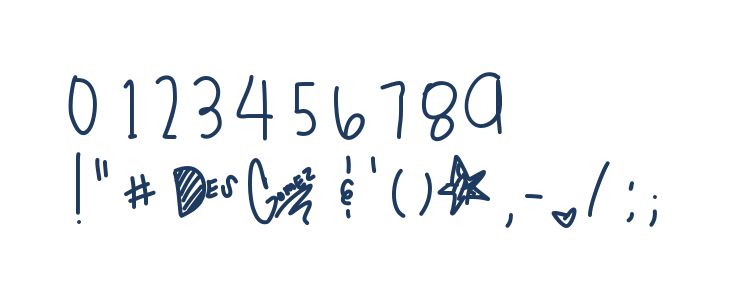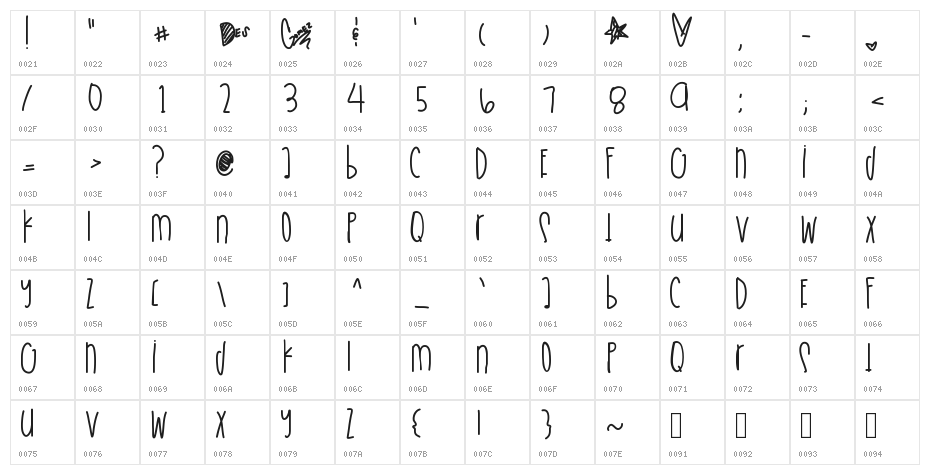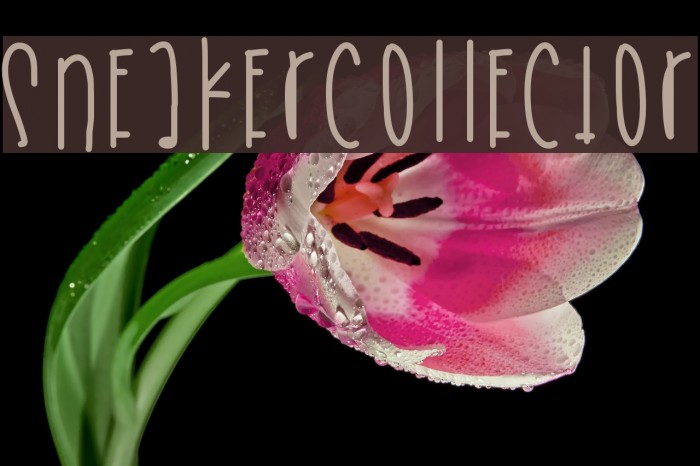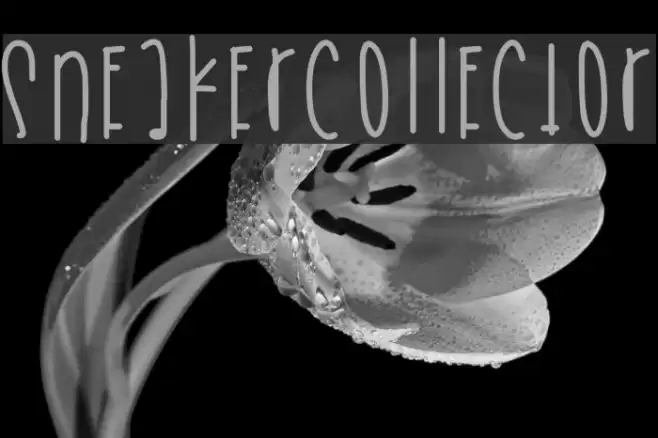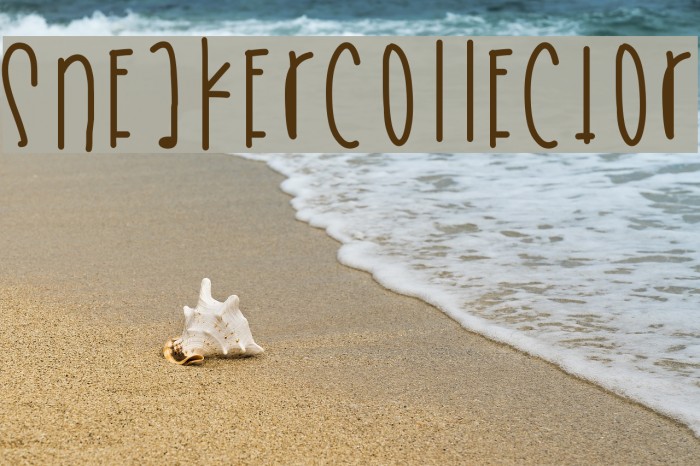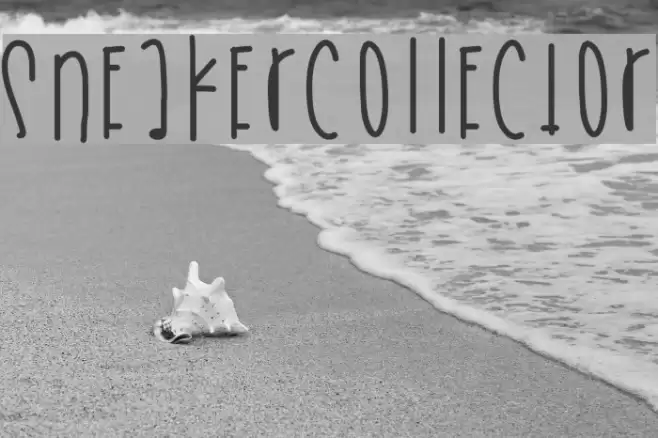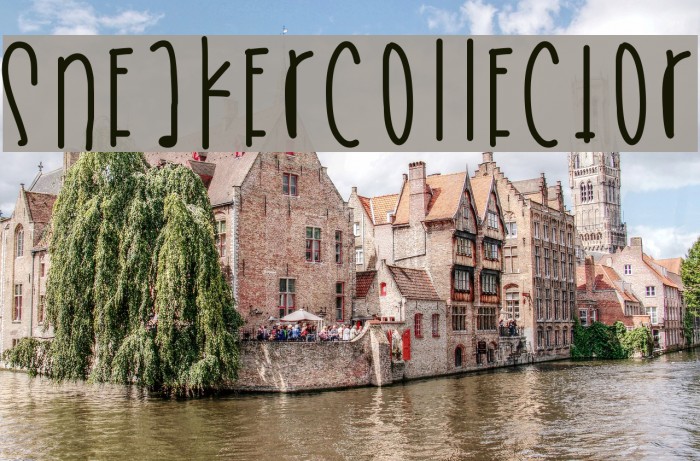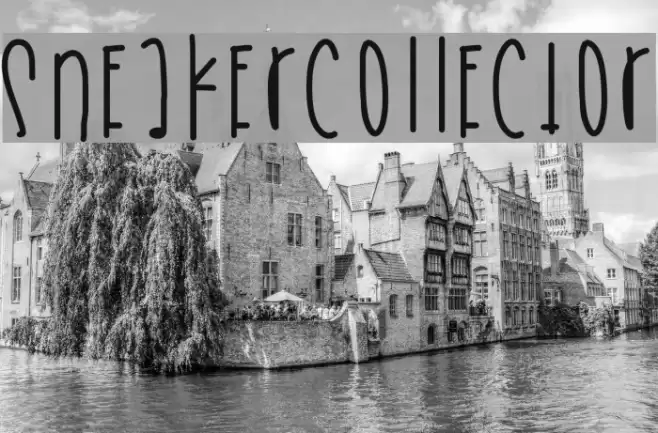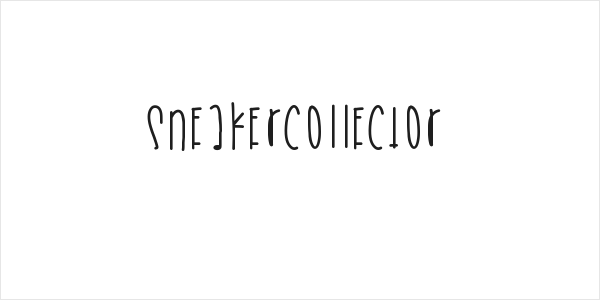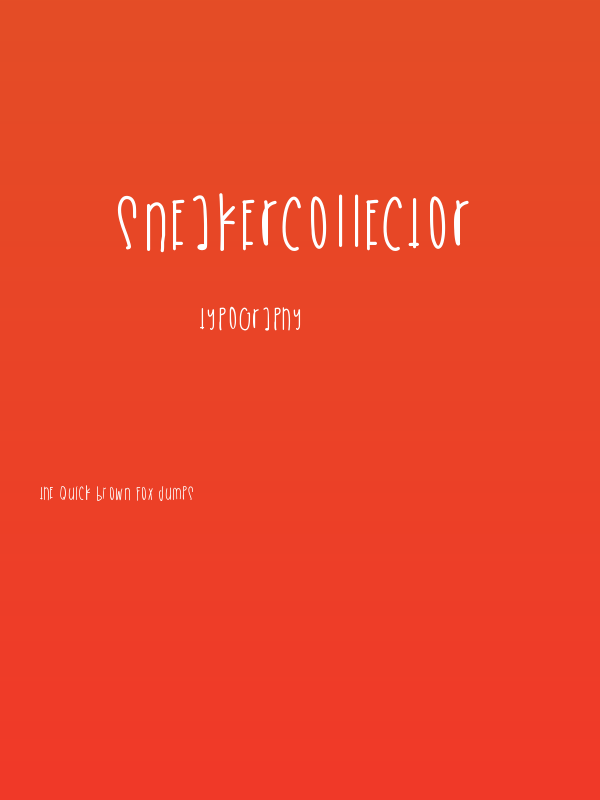
SneakerCollector Font
SneakerCollector Description
This font features a playful and casual handwritten style with tall, narrow characters. The strokes are consistent in width, giving it a uniform appearance. The letters have a slight slant, adding a dynamic and informal touch. The uppercase and lowercase letters maintain a cohesive look, with rounded edges and smooth curves. The numerals are clear and legible, matching the overall style of the alphabet. Special characters are creatively designed, with some incorporating unique artistic elements. This font exudes a friendly and approachable vibe, making it suitable for projects that aim to convey warmth and creativity.
| Proposed Projects | Ideal for greeting cards, children's books, playful branding, and social media graphics. |